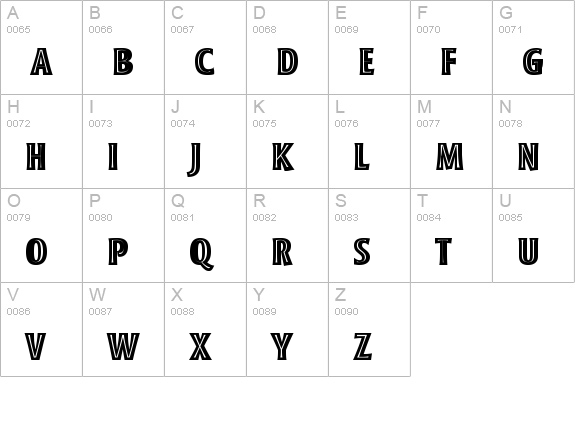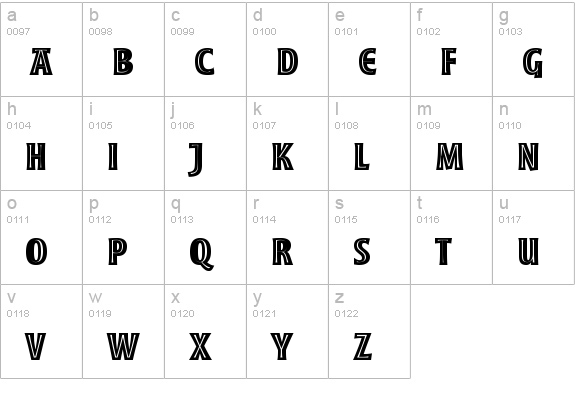
Moonglow Bold Condensed is a strong, high-contrast, condensed-width variant in the Moonglow typeface family \xE2\x80\x94 well suited to headlines, attention-grabbing titles, and strong calls-to-action.
Moonglow Bold Condensed font is an eye-catching display typeface that exudes a sense of modernity and sophistication. Its sleek and streamlined design makes it perfect for headlines, titles, and other prominent text elements that demand attention. The bold weight of this font commands presence while the condensed style adds a touch of elegance. The Moonglow Bold Condensed font is versatile and can be used across a wide range of design projects, from branding to advertising to editorial design. Its clean lines and distinct letterforms make it a standout choice for any project that requires a bold and contemporary look. Best of all, Moonglow Bold Condensed font is completely free to download at FontsMarket.com. This means that you can easily access this stylish typeface to elevate your designs without breaking the bank. Don't miss out on this fantastic opportunity to add a touch of sophistication to your projects with the Moonglow Bold Condensed font. Download it today and start creating stunning designs that are sure to impress.